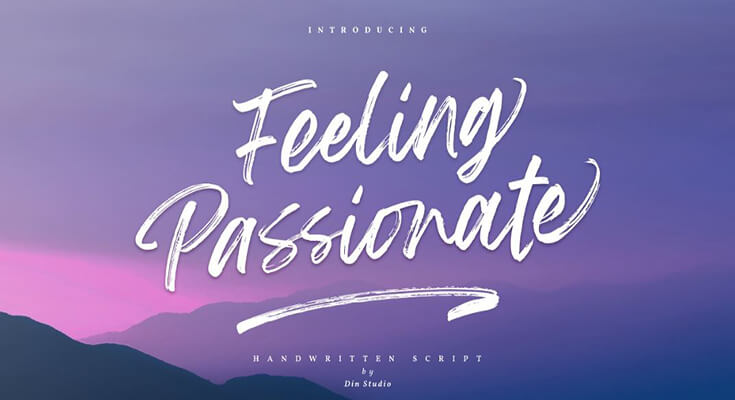
Feeling Passionate Font is a casual brush typeface that features a natural design with creative brush strokes. The font comes with lots of swashes, glyphs, ligatures, symbols, and much more.
This beautiful typeface was designed and published by Din Studio that is a studio that works in the design and created font.
This typeface consists of three styles Regular, Bold, and Light. Each style has 276 glyphs. This family supports different languages.
A large number of web designers used this family for their web designs such as banner ads, headers, and hero images. It is effective for headlines on news websites and blogs.
You can use it to design greeting cards, T-shirts, posters, banners, product packaging, book covers, invitation cards, and all kinds of digital and print designs. It is also perfect for different social media posts.